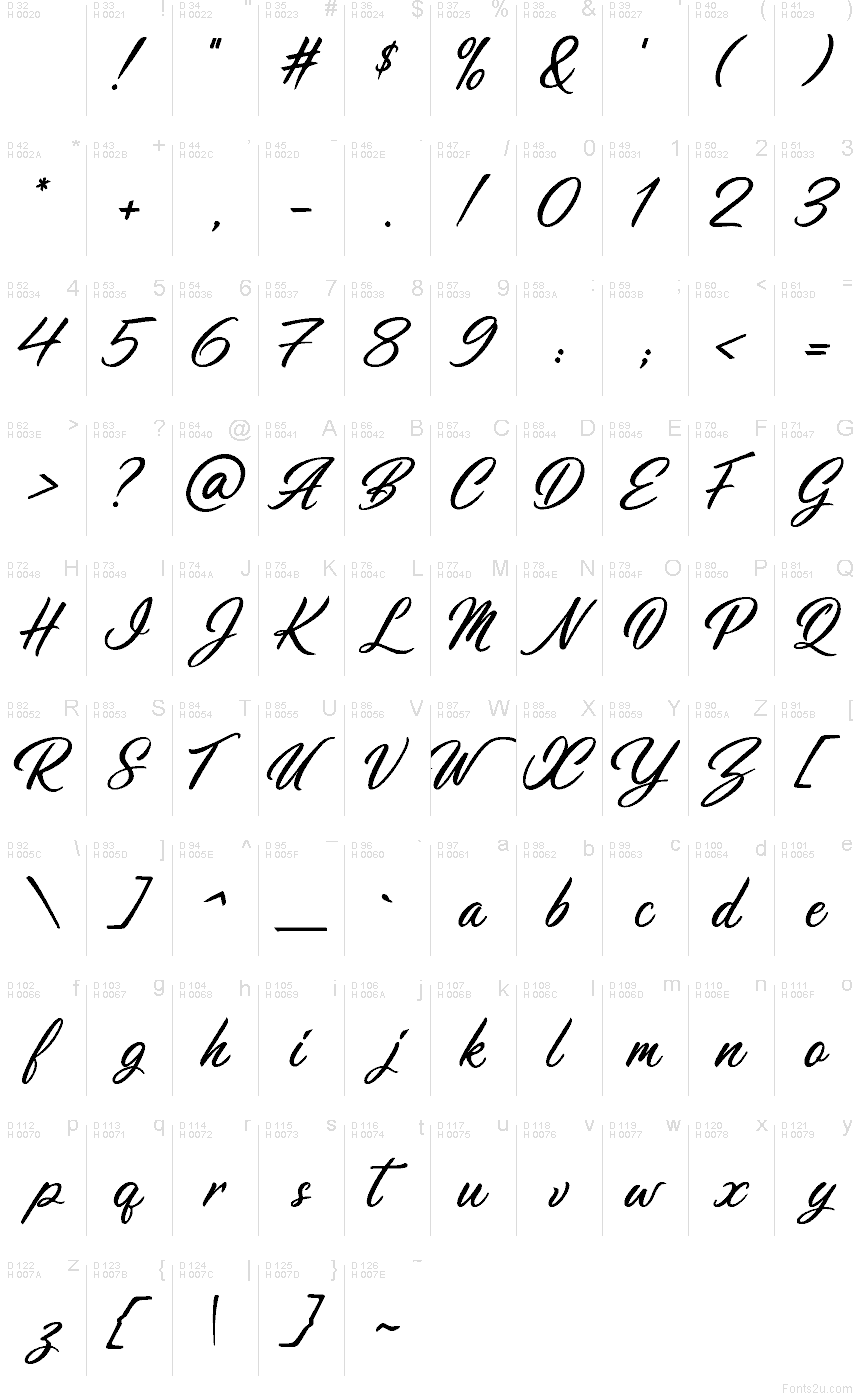
Le Secret du Manoir des Illusions
Le Secret du Manoir des Illusions by BlackFridayFont is a free romantic calligraphy font with long looping swashes and a soft, theatrical flow. The letters lean into a manor-house mood: broad opening strokes, tall sweeping curves, and delicate joins that make the whole line feel like a whispered invitation.
It suits perfume and candle packaging, wedding stationery, boutique branding, novel covers, and title cards where a little mystery helps set the tone. As a free font, it also works well for monograms, short cover lines, and signature-style logos, because those extended flourishes give even a few words the feeling of something handwritten and a bit secretive.